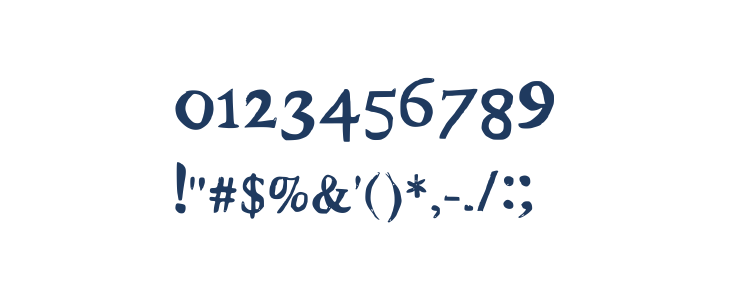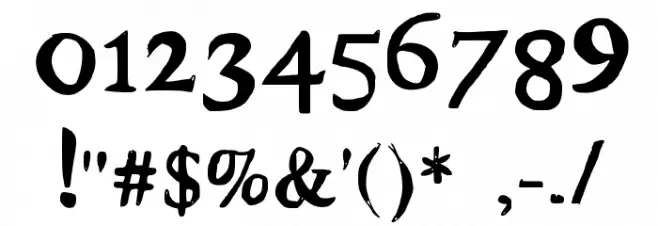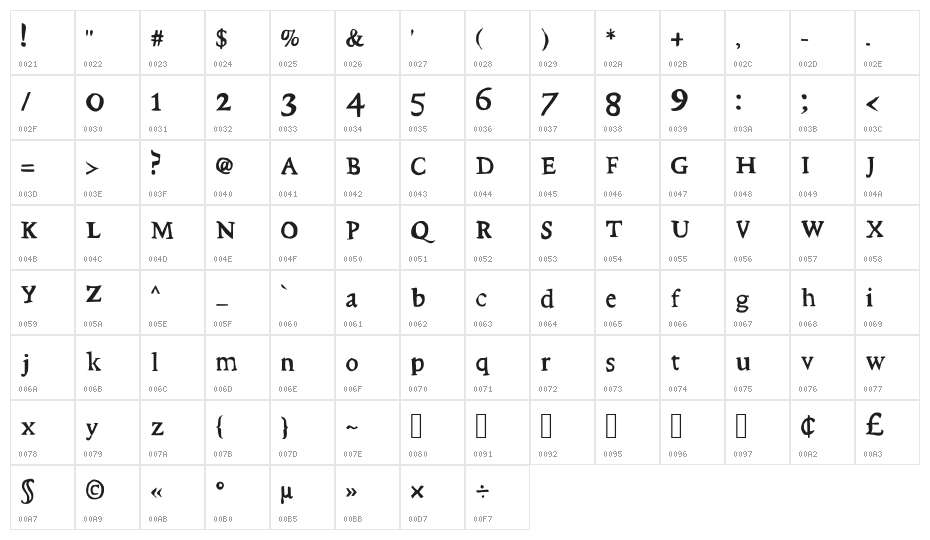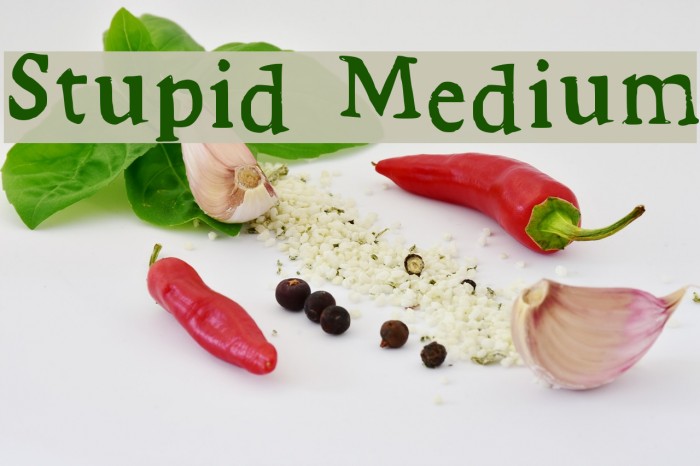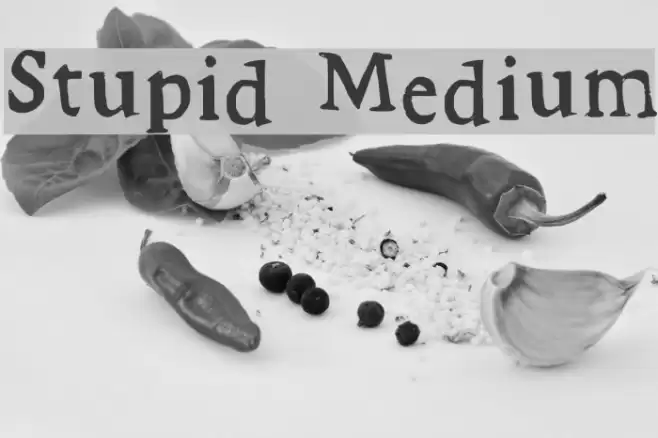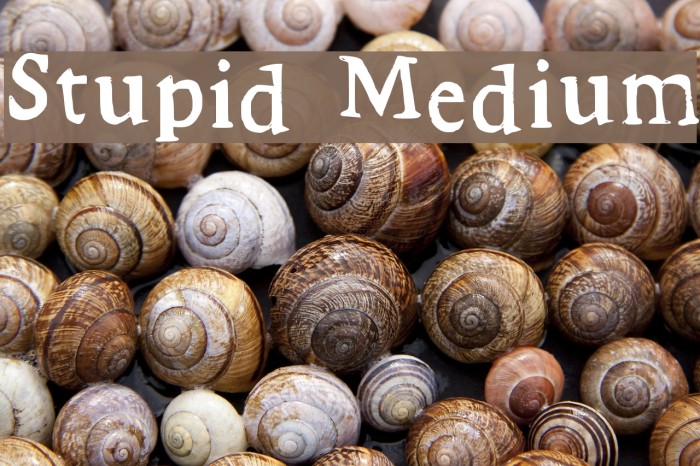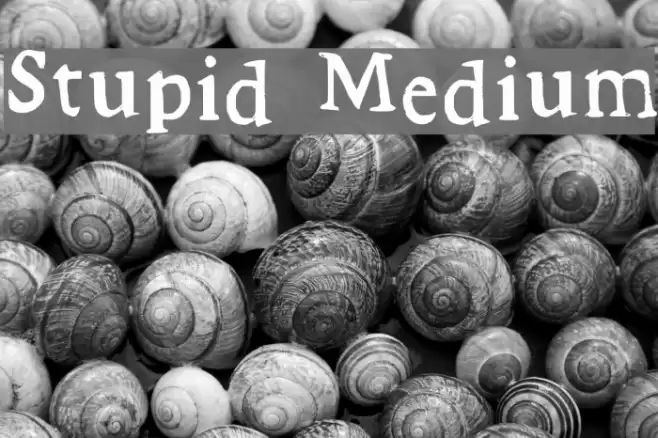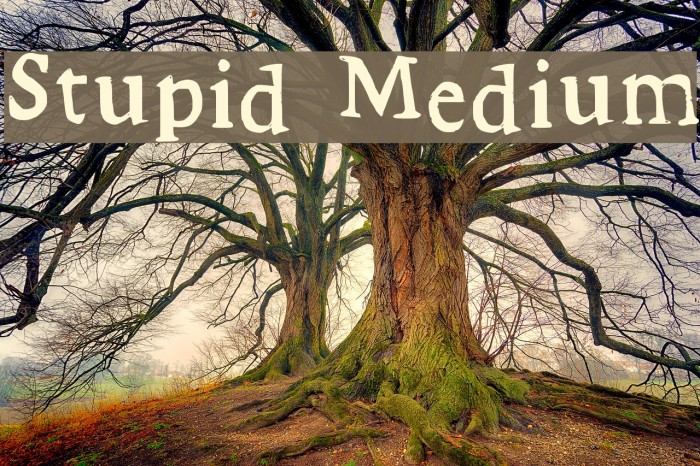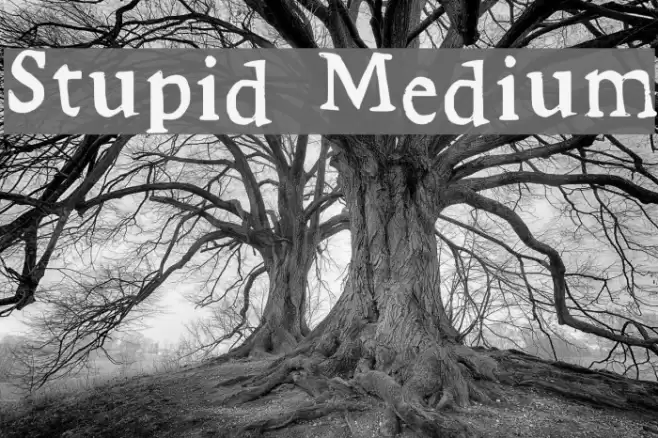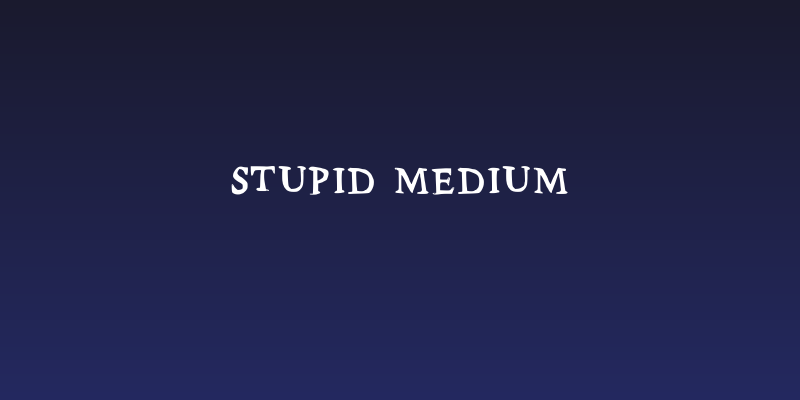
Stupid Medium Font
Stupid Medium Description
This font features a playful and slightly irregular design, characterized by its uneven stroke widths and quirky serifs. The letters have a hand-drawn appearance, giving them a whimsical and artistic feel. The uppercase letters are bold and prominent, while the lowercase letters maintain a consistent style with slightly exaggerated curves and angles. The numerals are distinct and easily readable, matching the overall style of the alphabet. Special characters are included, maintaining the same playful aesthetic. This font is ideal for projects that require a touch of creativity and uniqueness.
| Proposed Projects | Ideal for creative projects such as children's books, artistic posters, and whimsical branding. |